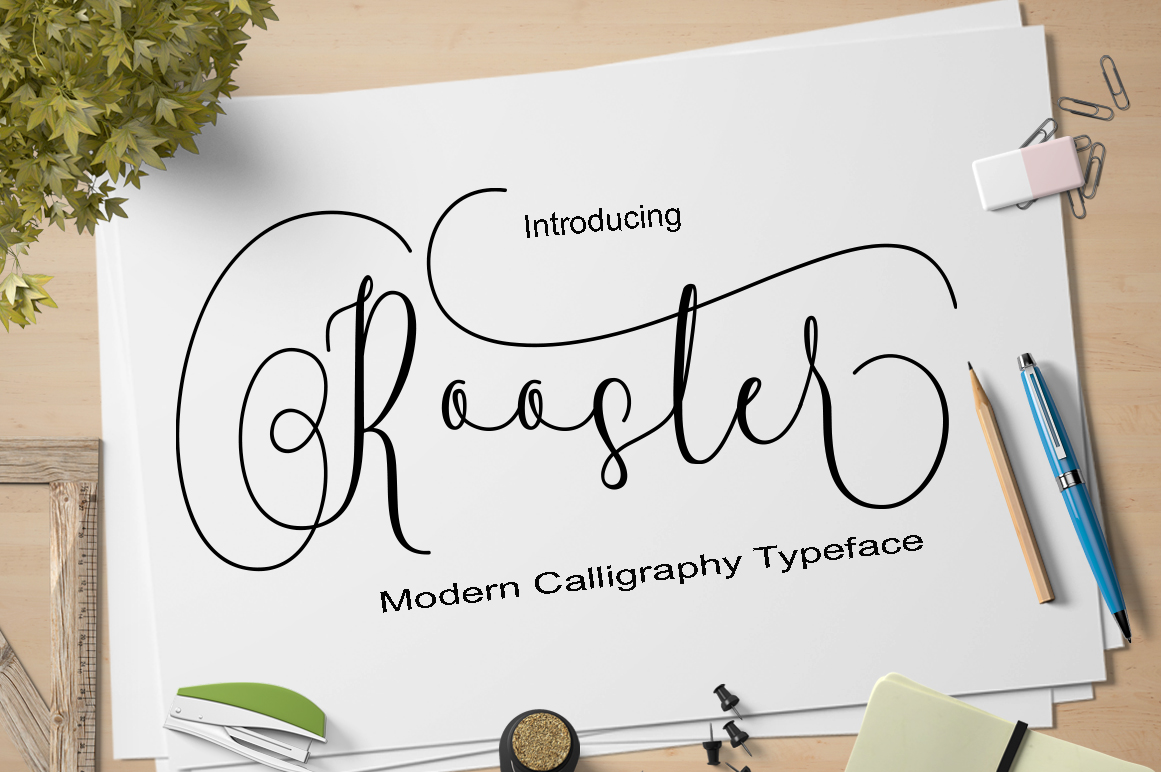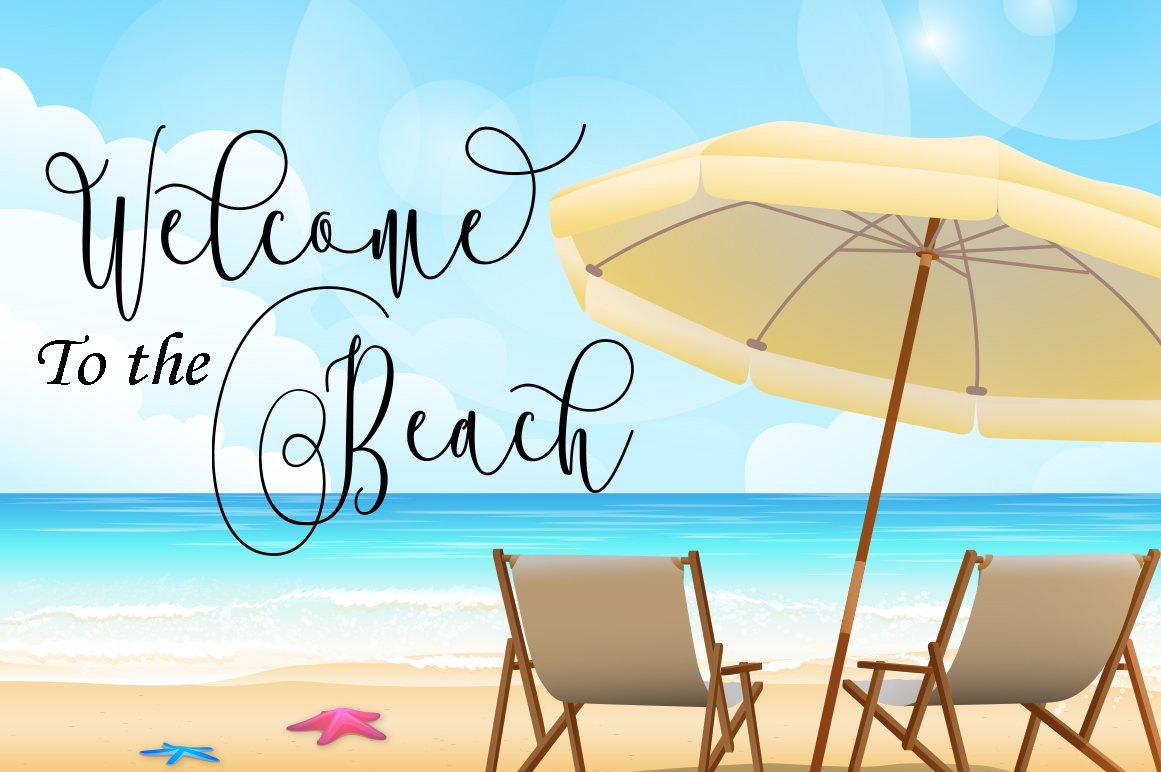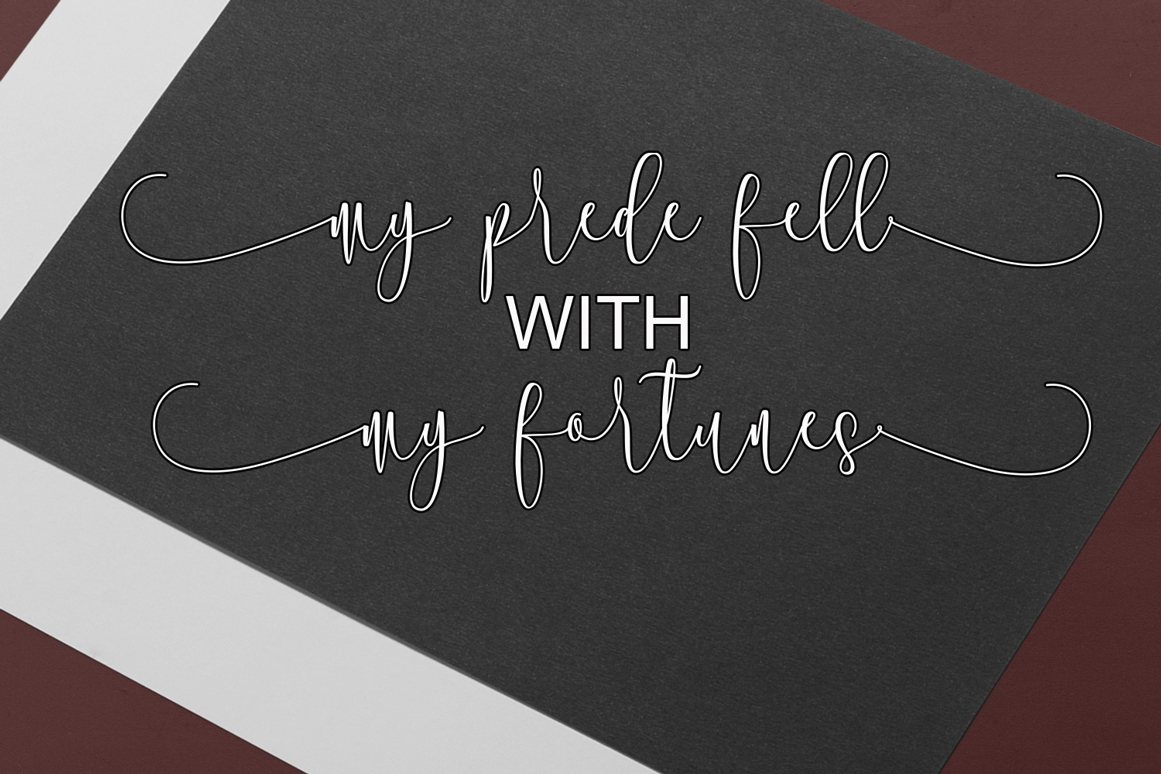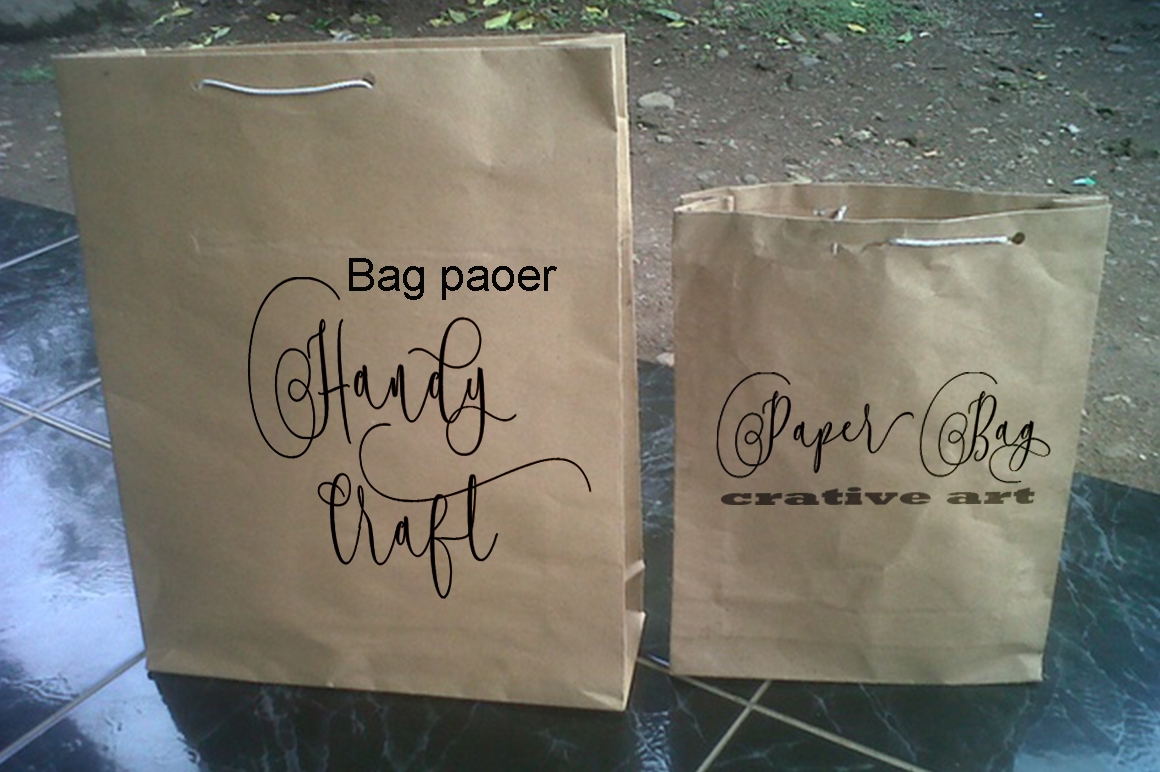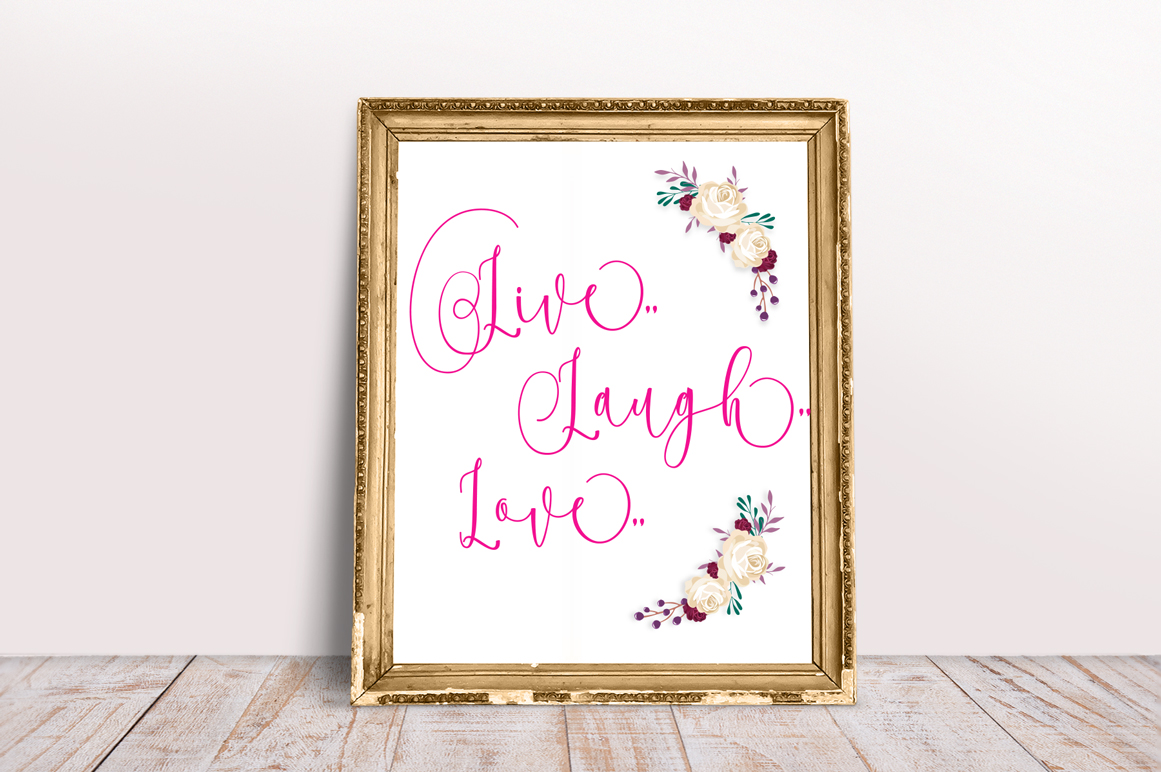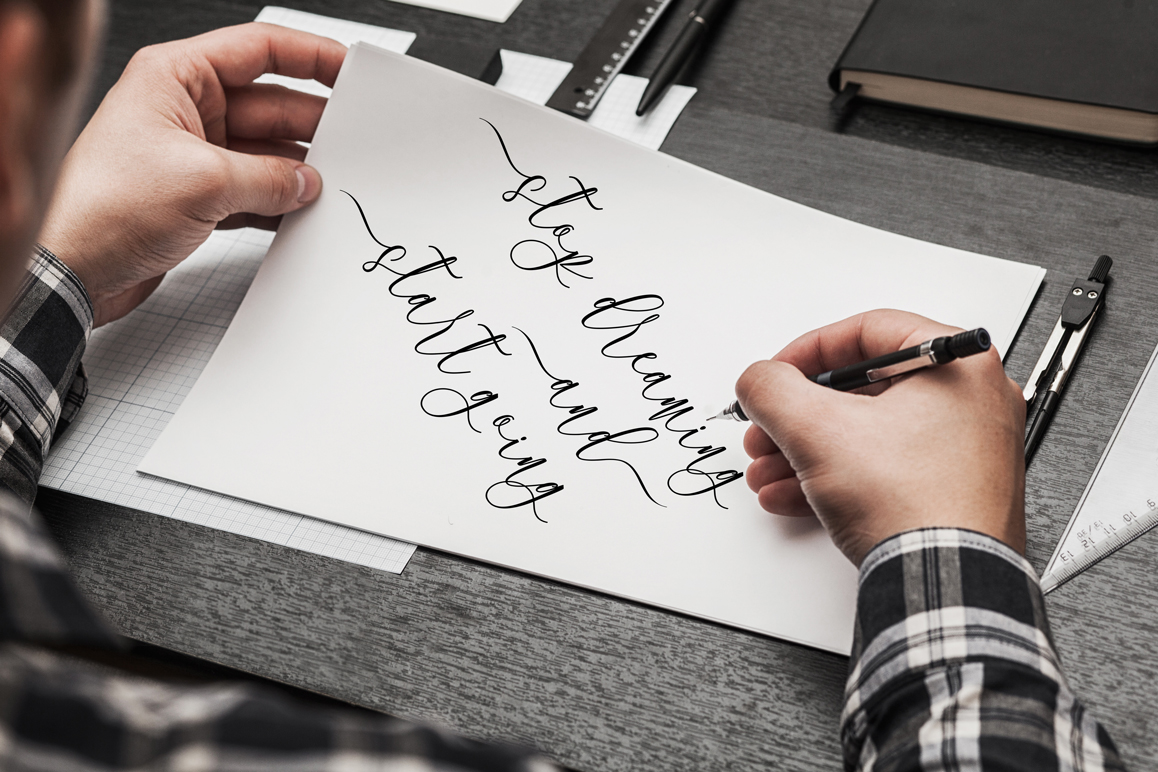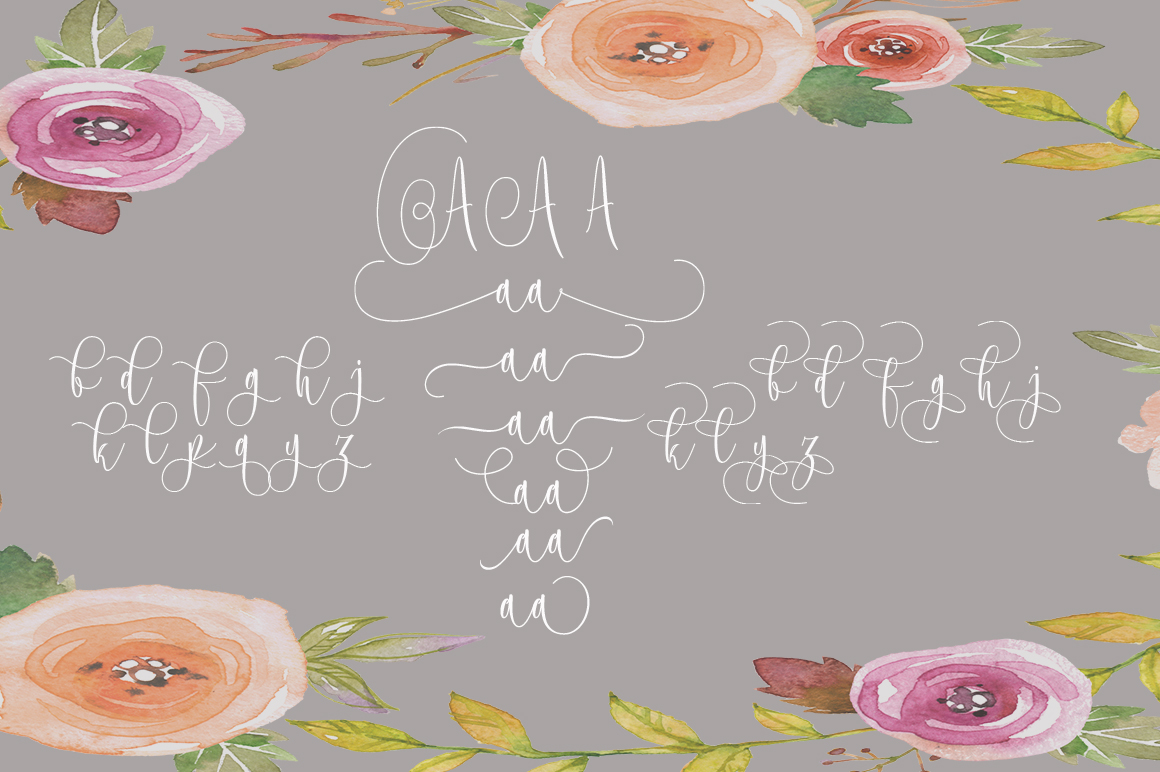
Rooster Script Font
About Rooster Script Font
The Rooster Script is a stylish calligraphy font that features thin hand drawn glyphs.
Rooster has over 570 unique glyphs with 384 alternate characters.